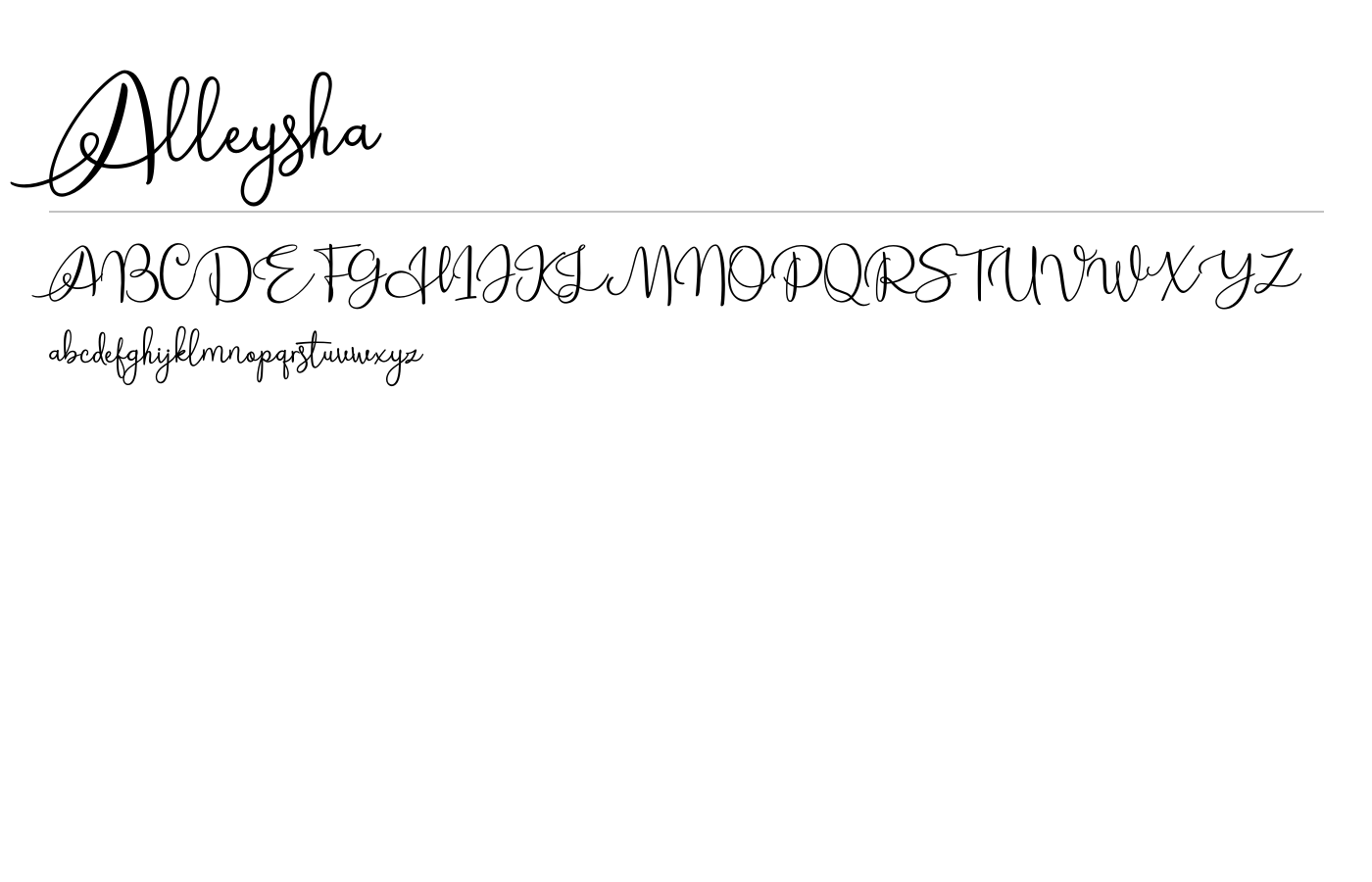
Alleysha is a delicate, elegant script font characterized by its thin, flowing strokes and expressive, handwritten feel. Its slender lines and whimsical loops make it ideal for feminine branding, invitations, and creative projects that require a personal, graceful touch. This font shines in contexts where a stylish, sophisticated, and intimate atmosphere is desired.
Alleysha Font
About Alleysha Font